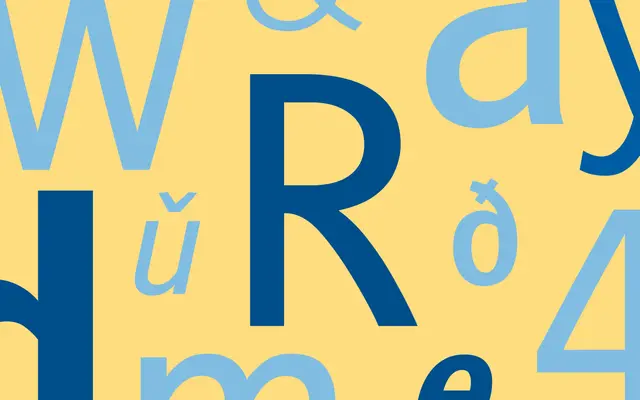
Stroudley
Dalton Maag · Bruno Maag, Ron Carpenter · 2019
A humanist signage sans by Bruno Maag and Ron Carpenter built to save space without losing legibility, in three weights with matching italics.
A humanist sans by Bruno Maag and Ron Carpenter that began as a signage commission and grew into a six-style family covering Light, Regular and Bold with matching italics. The structures are tightened to save horizontal space while keeping aperture and contrast tuned for legibility at distance and small size, so it can move from station boards into editorial, identity and interface work without rebuilding the type system.
Dalton Maag describe Stroudley as a humanist sans originally designed for signage, with meticulously crafted structures that save space while ensuring optimal legibility, framed as versatile enough to handle a wide range of design challenges.